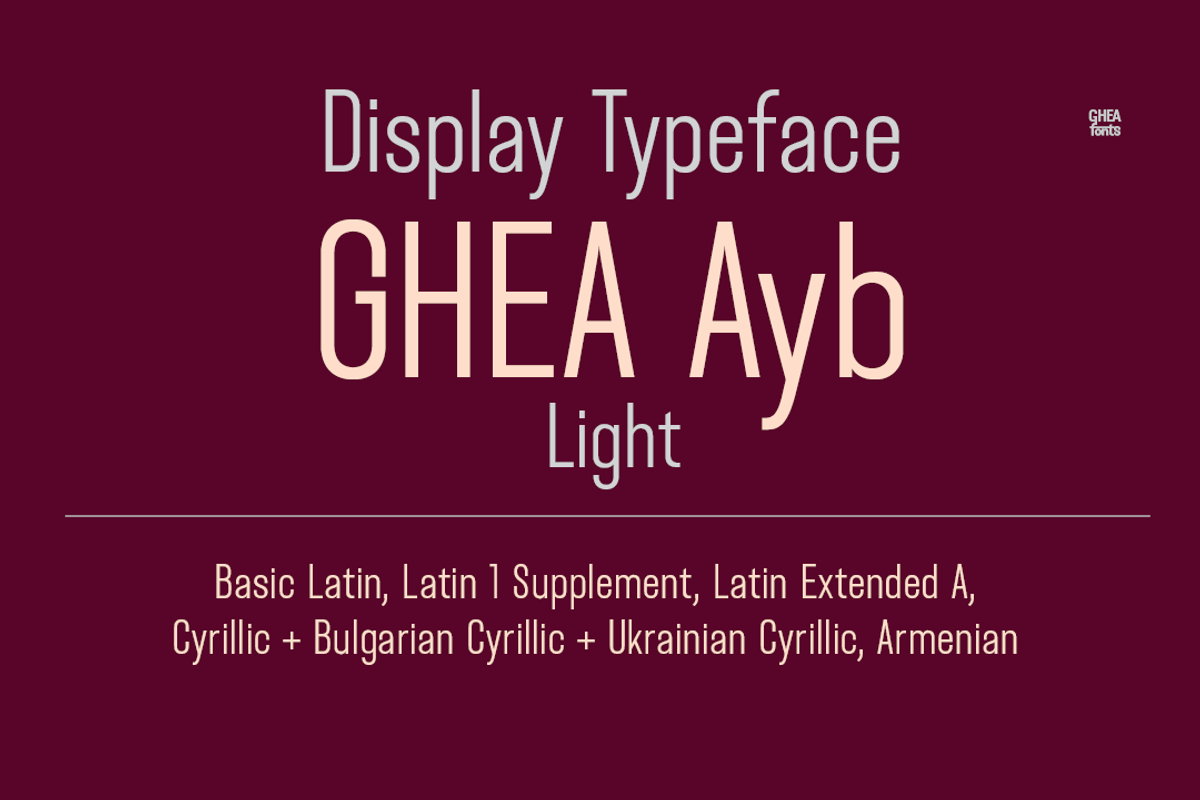
GHEA Ayb Font Free Download is a professionally designed Armenian typeface that offers both tradition and modernity in one clean, legible design. Ideal for multilingual projects, academic publishing, cultural branding, and editorial work, GHEA Ayb provides elegant support for both Armenian and Latin scripts.
With its balanced letterforms and versatile appearance, this font is perfect for designers and publishers who value clarity and heritage. Whether you're creating printed materials, signage, or digital layouts, GHEA Ayb ensures your message is communicated with sophistication and readability.